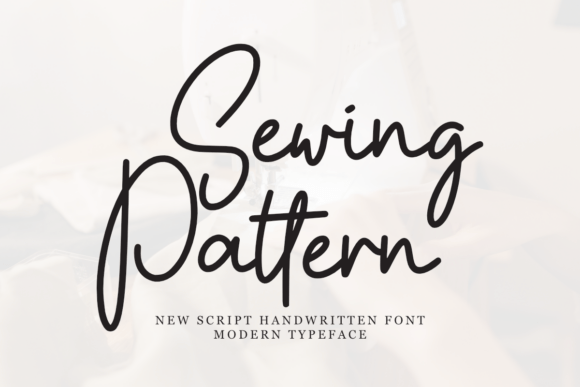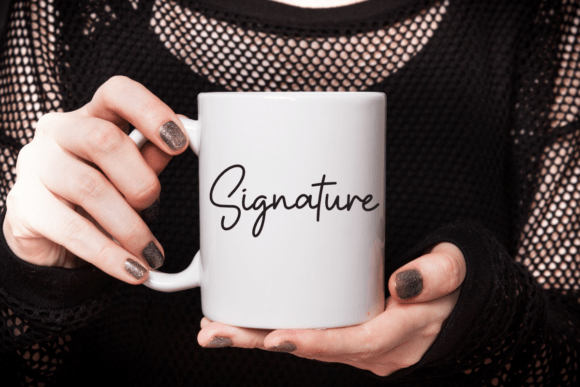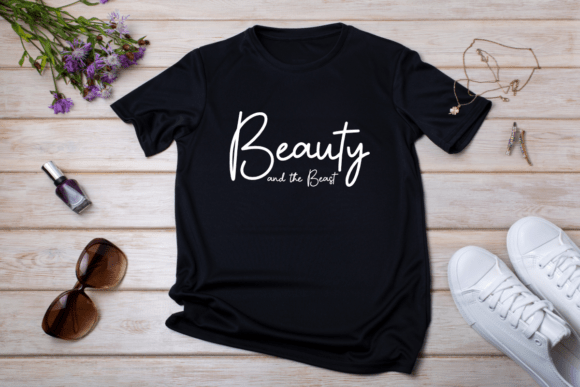
Sewing Pattern Font: Elegant Handwritten Script for Cricut & DIY Projects
About the Sewing Pattern Font
Presenting Sewing Pattern Font, a unique and stylish typeface that will make your work stand out. Sewing Pattern is a modern handwritten script font that brings a touch of elegance and warmth to any design. With its smooth lines and flowing curves, this font is perfect for wedding invitations, nursery decor, greeting cards, branding, wall art, tumbler, sticker, cricut and other lovely creations.
Sewing Pattern Font Usage Examples
Sewing Pattern Font Example